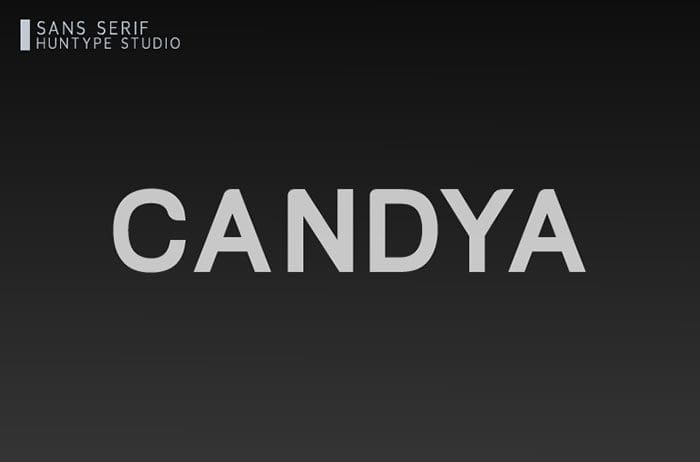
Candya Sans Serif Font
Candya sans serif font inspired by classic typography and brings its own unique style to any design project. This fantastic sans serif font is best suited for headlines of all sizes, as well as for blocks of text that have both maximum and minimum variations. Whether it’s for web, print, moving images, or anything else – Candya will look spectacular. Thanks to Mas Anis for sharing this awesome font! Take a look on this portfolio for more of his stunning fonts.